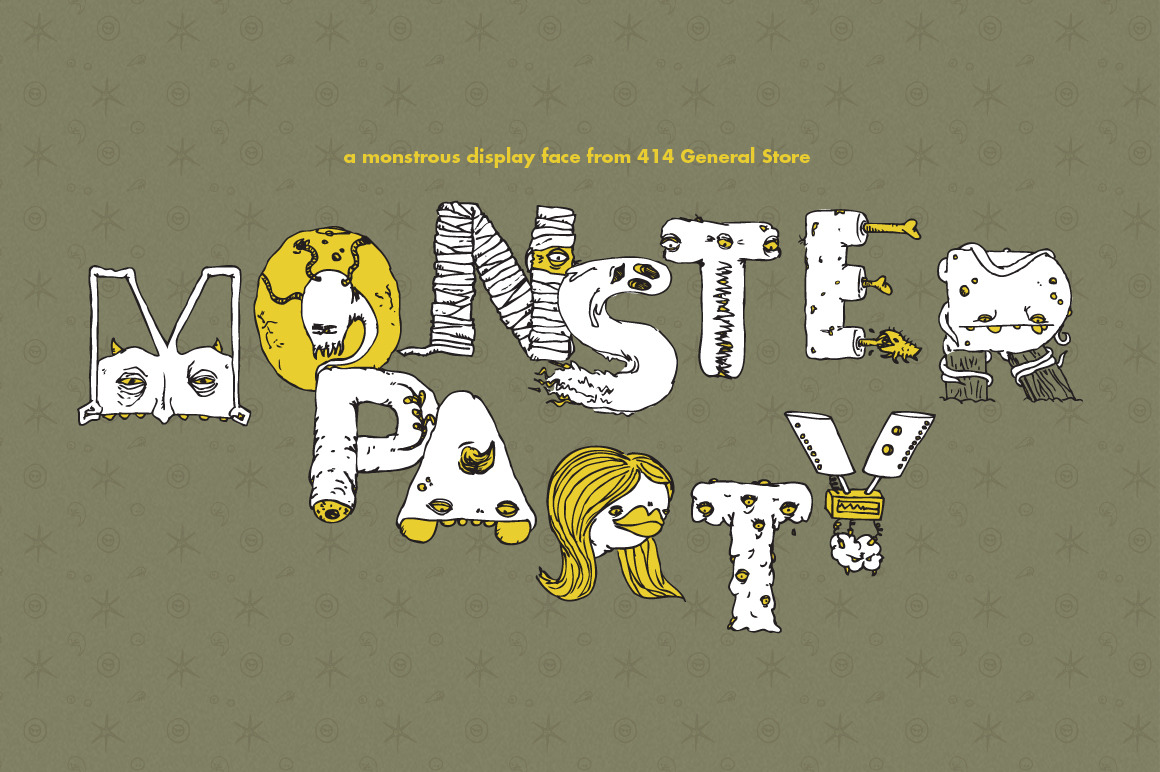
Monster Party - Typeface
Monster Party is an illustrated display face with a lot of character for any haunting occasions. It comes in two styles, Monsters and Bones for whichever your situation calls for. Upper and lowercase sets include different characters for mixing & matching.
Great for Friday the 13th, Halloween or wherever whimsy is needed.